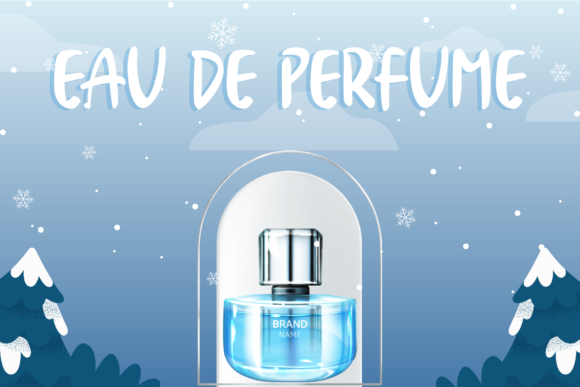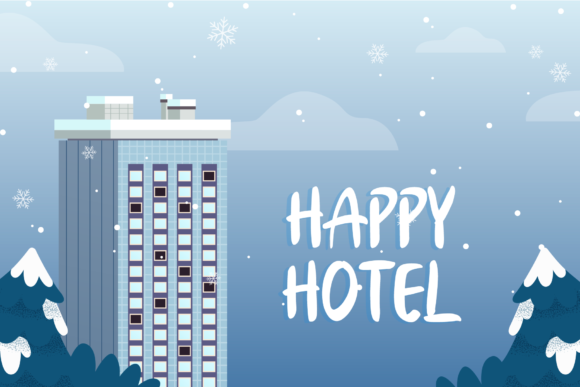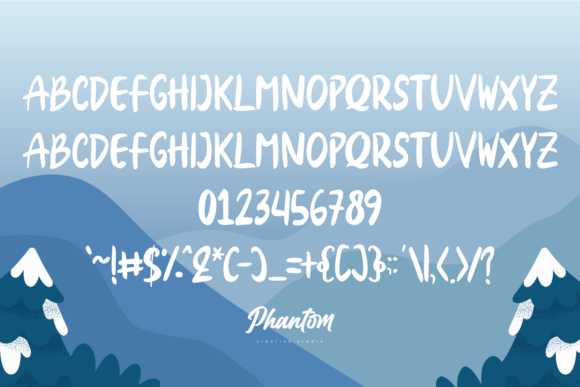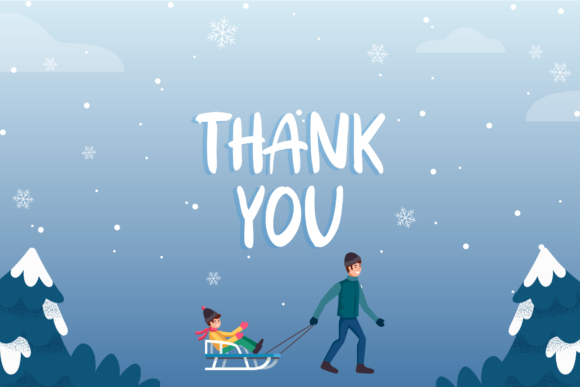
Breezy Cool Font: Elevate Your Designs with a Playful and Crafty Script
Are you tired of using the same old fonts in your designs? Look no further than the Breezy Cool Font, a playful and crafty script font that’s sure to add a touch of personality to your projects. With its unique thickness and versatility, Breezy Cool is perfect for designers and crafters looking to make a statement.
What is Breezy Cool Font?
Breezy Cool is a carefully crafted script font that’s designed to be both fun and functional. Its playful strokes and varying thickness make it perfect for adding a touch of whimsy to your designs, while its clarity and legibility ensure that your message gets across. Whether you’re working on a logo, a poster, or a social media graphic, Breezy Cool is the perfect choice.
Key Features of Breezy Cool Font
- Playful and Crafty: Breezy Cool’s script font is designed to be fun and engaging, making it perfect for designs that need a touch of personality.
- Variable Thickness: The font’s unique thickness makes it versatile and suitable for use on a variety of backgrounds and design elements.
- Highly Legible: Despite its playful nature, Breezy Cool is highly legible, making it perfect for use in a variety of design applications.
How to Use Breezy Cool Font in Your Designs
So, how can you use Breezy Cool in your designs? The possibilities are endless! Here are a few ideas to get you started:
- Logos and Branding: Use Breezy Cool to create a unique and memorable logo that reflects your brand’s personality.
- Posters and Flyers: Add a touch of whimsy to your posters and flyers with Breezy Cool, perfect for promoting events, products, or services.
- Social Media Graphics: Use Breezy Cool to create eye-catching social media graphics that stand out from the crowd.
- Handmade Crafts: Breezy Cool is perfect for crafters, with its playful font making it ideal for use on handmade crafts, such as signs, cards, and gift tags.
Why Choose Breezy Cool Font?
So, why should you choose Breezy Cool for your designs? Here are just a few reasons:
- Unique and Playful: Breezy Cool is a one-of-a-kind font that’s sure to add a touch of personality to your designs.
- Versatile: The font’s variable thickness makes it suitable for use on a variety of backgrounds and design elements.
- High-Quality: Breezy Cool is a high-quality font that’s designed to deliver exceptional results.
In conclusion, Breezy Cool Font is a playful and crafty script font that’s perfect for designers and crafters looking to add a touch of personality to their projects. With its unique thickness, versatility, and high legibility, Breezy Cool is the perfect choice for a wide range of design applications. So why wait? Get Breezy Cool Font today and see how it can elevate your designs!